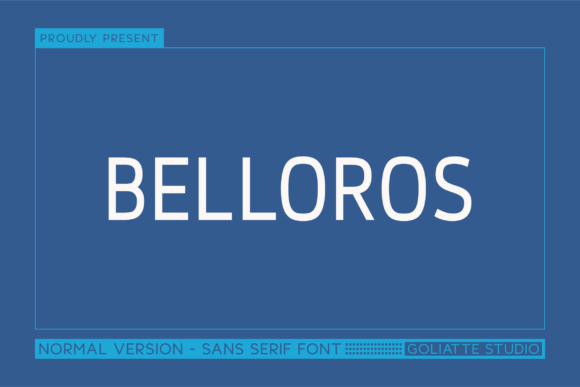
That’s where Belloros Font comes in – a modern sans serif typeface designed to make your designs stand out. With its clean lines, sharp edges, and geometric structure, Belloros Font is the perfect choice for creating bold, unforgettable designs that convey strength, authority, and contemporary elegance. Whether you’re working on digital interfaces, high-end branding, or print materials, Belloros Font ensures your message is clear and confident.
Belloros Font Key Features
- Font Family: Belloros is a sans-serif font family.
- Size: The font family includes 6 weights ranging from Light to Extra Bold.
- Unique Characteristics: Belloros features a modern, clean design with a distinctive x-height and a subtle rounded feel.
Belloros Font Review
Overall, I was excited to dive into the Belloros Font and see what it has to offer. Here’s my honest review.
- Unique and elegant design – Belloros Font has a distinct aesthetic that sets it apart from other fonts.
- Good for headings and titles – The font’s bold and dramatic feel makes it perfect for headings and titles.
- Readability in body text – While Belloros Font is great for headings, it can be a bit challenging to read in body text due to its elaborate design.
- Lack of versatility – The font is quite stylized and may not be suitable for projects that require a more neutral or minimalist aesthetic.
Overall, I think Belloros Font is a great choice for projects that require a touch of elegance and sophistication. However, it may not be the best fit for every project. Use it wisely and consider your design goals before incorporating it into your design.
Tips for Getting the Most Out of Belloros Font
For the best results, use Belloros Font in combination with bold or italic styles to add emphasis. You can also experiment with different font sizes and colors to create a visually appealing design. Additionally, consider pairing Belloros Font with other fonts to create a unique and eye-catching visual identity.
Belloros Font is suitable for a variety of designs, including:
– Headings and titles
– Logos and branding
– Print and digital materials
– Web design and development